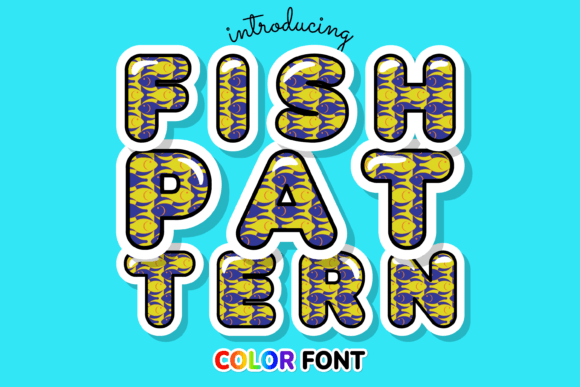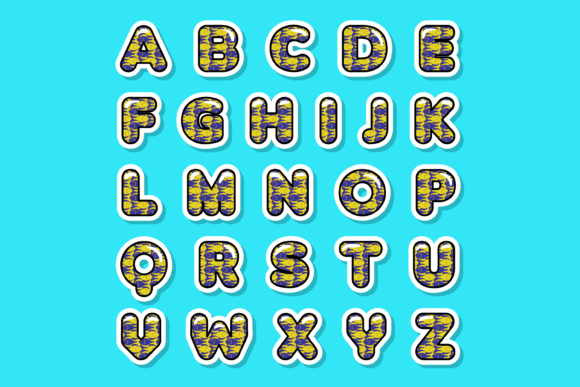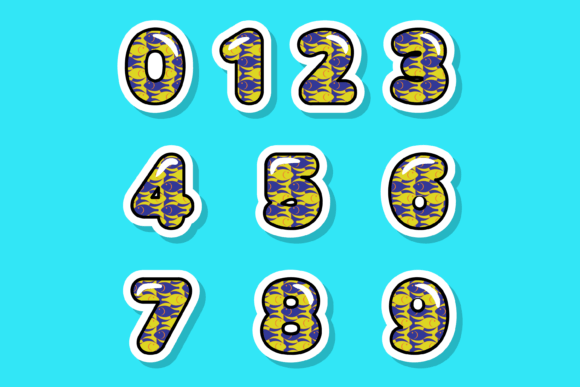
Fish Pattern Font
About Fish Pattern Font
Absolutely! Fish Pattern is an incredibly cool color font that can add a touch of aquatic charm and creativity to your designs. Whether you’re working on custom designs, engaging in DIY crafts, or looking to enhance any creation with a lovely touch, Fish Pattern is an amazing choice.
This font is inspired by the beauty and elegance of underwater life. It features intricate fish illustrations, vibrant colors, and playful patterns that bring a sense of joy and liveliness to your designs. Each letter is transformed into a unique fish shape, allowing you to create visually stunning compositions with ease.
Fish Pattern is highly versatile and can be used in various design applications. Whether you’re designing posters, invitations, logos, children’s books, or any other visual content, this font will infuse your work with a delightful and whimsical aquatic vibe. Its colorful and detailed fish illustrations make it particularly suitable for projects that aim to evoke a sense of nature, tranquility, and fascination with the underwater world.
Customization is made easy with Fish Pattern. You can adjust the size, spacing, and color of the font to suit your specific design needs. Its PUA encoding ensures easy access to all the amazing glyphs and ligatures, allowing you to experiment and create beautiful compositions that reflect the spirit of fish and underwater life.
The cool and playful aesthetic of Fish Pattern makes it an excellent choice for adding visual interest and personality to your designs. Whether you’re aiming for a cheerful and lively tone or a more soothing and serene atmosphere, this font can adapt to your creative vision. Its intricate fish illustrations and vibrant colors make every letter a delightful element, enhancing the overall beauty of your creations.
Choose Fish Pattern to bring a sense of wonder and fascination to your designs. Let its cool color font style and playful fish illustrations captivate your audience and transport them into the enchanting world of underwater life. With this incredible font, your creations will stand out and make a splash.
Embrace the beauty and charm of Fish Pattern, and make it your go-to choice for any design project that requires a lovely touch and a touch of aquatic creativity. Whether you’re working on personal projects, environmental campaigns, or any other creative endeavor, this font will infuse your work with the spirit and magic of fish and the underwater world.